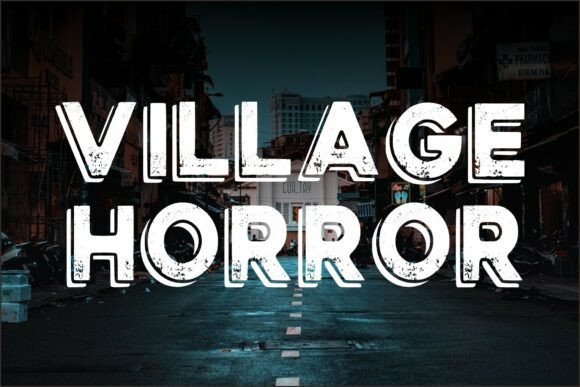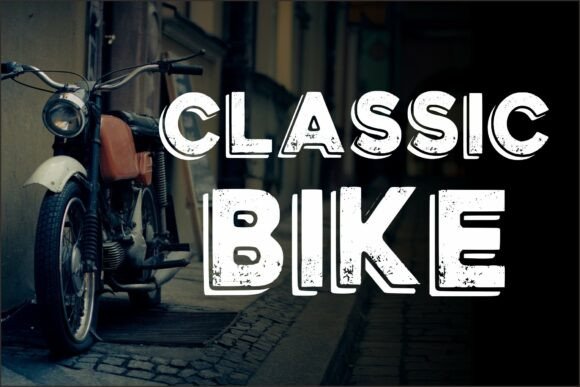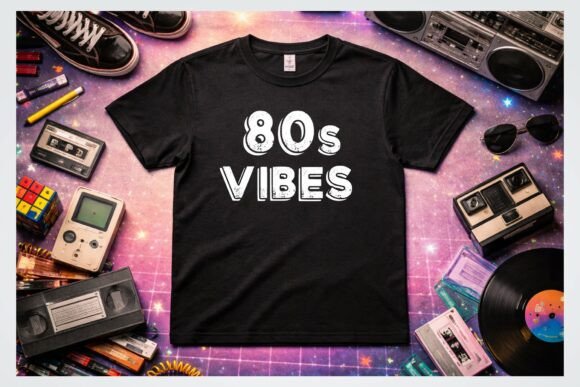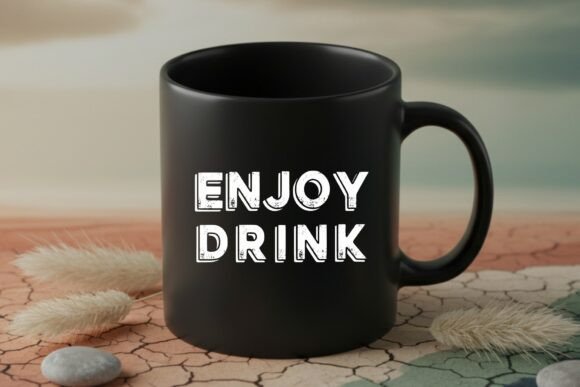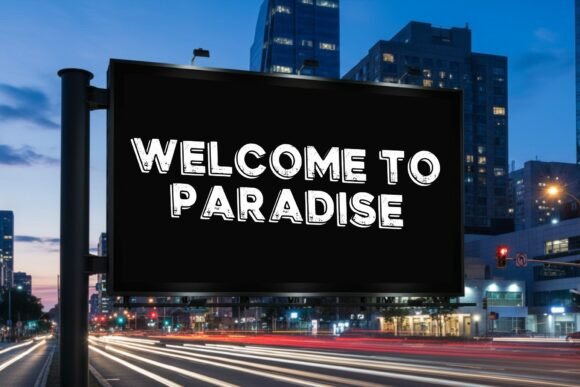
Unlocking the Power of Retro Street Font
You’re browsing through a vintage flea market, and you stumble upon an old, distressed sign that catches your eye. The faded letters seem to leap out at you, radiating a sense of nostalgia and urban grit. You can almost smell the worn leather and hear the distant hum of a bygone era. This moment of creative serendipity is exactly what the Retro Street Font is all about.
As a designer, you know the value of a high-quality font that can transport your audience to another time and place. The Retro Street Font is a game-changer, offering a bold, textured look that’s perfect for creative projects, from eye-catching headlines to social media visuals. With its transparent background and free download option, this design resource is a must-have for any serious designer.
Whether you’re designing for vintage aesthetics or modern street culture, the Retro Street Font brings a unique blend of rugged style and readability that’s sure to elevate your work. So why settle for a generic font when you can unleash the raw energy of the Retro Street Font on your next project?
Retro Street Font
- Unique characteristics include distressed textures and worn-out effects, perfect for retro-themed designs
Honest Review: Retro Street Font
I recently stumbled upon the Retro Street Font, and I must say it’s been a game-changer for my creative projects. As a designer, I’m always on the lookout for high-quality design resources that can help me stand out from the crowd.
What works well: ✨ The Retro Street Font has a unique, vintage aesthetic that’s perfect for retro-themed designs. The font is highly customizable, and I love the fact that it comes with a transparent background, making it easy to integrate into any design. The font is also free to download, which is a huge plus for indie designers like myself.
- Unique vintage aesthetic
However, I did encounter a few limitations: ⚠️ The font is not as versatile as I’d like, and it may not be suitable for all types of creative projects. Additionally, the font’s boldness can sometimes be overwhelming, so be sure to use it in moderation.
Overall, I’m really impressed with the Retro Street Font. It’s a fantastic addition to my design arsenal, and I’m excited to see how it can elevate my future projects.
To get the most out of the Retro Street Font, use it with a transparent background to create a unique and eye-catching design. You can also experiment with different font sizes and colors to add visual interest to your project.
The Retro Street Font is perfect for a variety of creative projects, including:
- Music and event promotion
- Food and drink branding
- Travel and adventure marketing